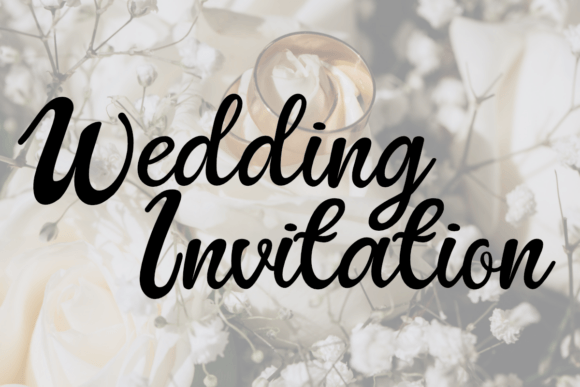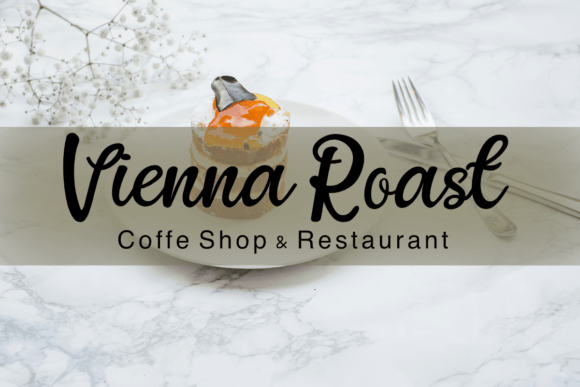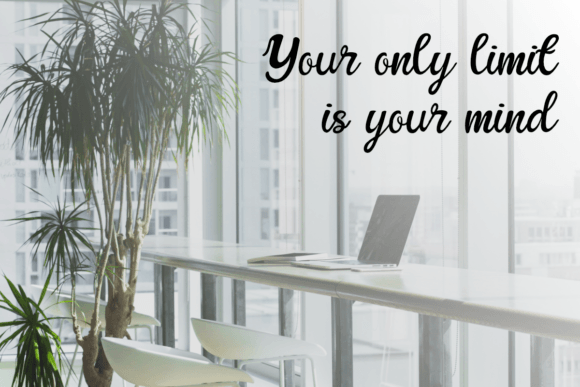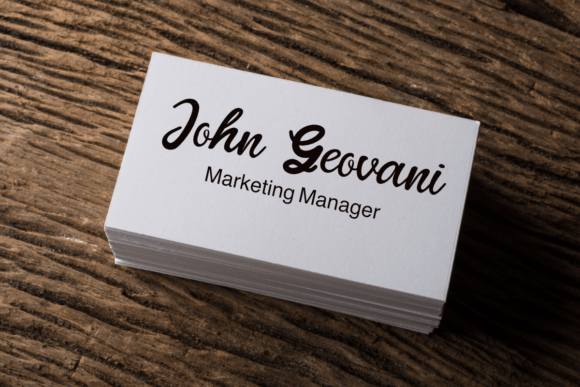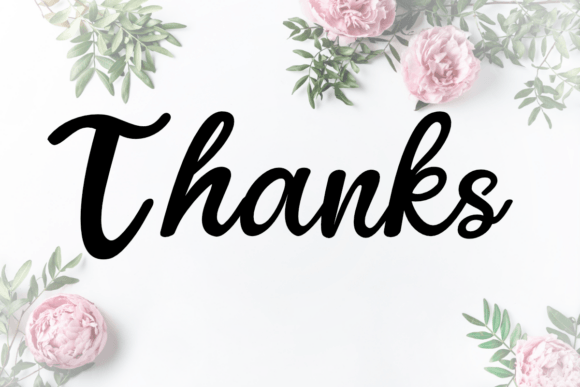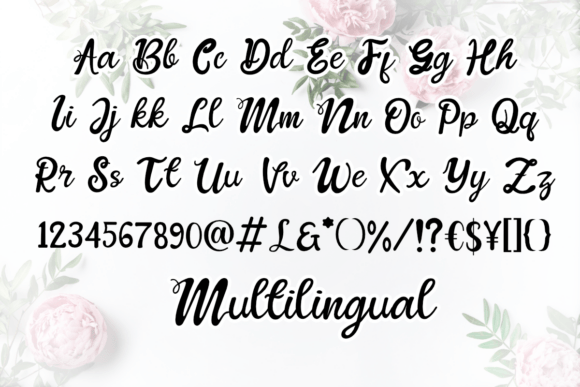
Introduction to Serena Lumielle Font
As a designer, there’s nothing quite like the thrill of bringing a creative project to life. The blank canvas stares back at you, begging to be filled with imagination and inspiration. It’s in these moments that the right font can make all the difference – and that’s where the elegant Serena Lumielle Font comes in.
With its soft strokes and delicate curves, this font adds a personal yet professional touch to any design. Whether you’re crafting invitations, building a brand, or working on a high-quality design project, Serena Lumielle Font is the perfect resource to elevate your work. And the best part? It’s available for free download, making it a valuable addition to any designer’s toolkit.
Key Features of Serena Lumielle Font
- High-quality design: The Serena Lumielle Font is designed with precision and care to deliver a professional look for your creative project.
- Unique characteristics: The Serena Lumielle Font features a unique blend of elegance and sophistication, making it an excellent choice for high-end creative projects.
Honest Review: Serena Lumielle Font
- ✨ The font’s elegant and sophisticated design makes it perfect for luxury or high-end branding projects.
- ✨ The transparent background feature allows for easy layering and customization in design applications.
- ✨ The font’s high quality and smooth lines make it a great choice for professional designs.
- ⚠️ The font’s limited character set may not be suitable for projects that require a wide range of special characters or languages.
- ⚠️ Some users may find the font’s size and weight options to be limited compared to other fonts.
Overall, I’m impressed with the Serena Lumielle Font’s design and versatility. While it may not be perfect for every project, it’s definitely a valuable design resource for those looking for a high-quality, free font download.
The Serena Lumielle Font is a high-quality design resource ideal for creative projects. It features a transparent background, making it perfect for overlaying on images or using as a standalone element.
To get the most out of the Serena Lumielle Font, use it in conjunction with other design elements to create a visually appealing composition. Experiment with different font sizes, colors, and layering techniques to achieve the desired effect.
The Serena Lumielle Font is suitable for a variety of creative projects, including:
Yes, the Serena Lumielle Font has a transparent background, making it ideal for use on various backgrounds and design elements. This feature allows for seamless integration with other design elements and ensures a high-quality finish for your creative project.